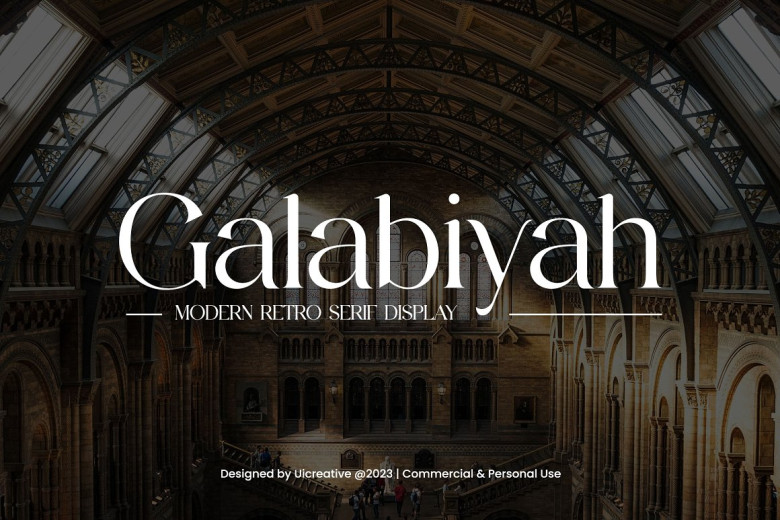
Galabiyah Font
Galabiyah Retro Modern Serif Font is an elegant and beautiful font designed with retro modernist qualities that is versatile enough to suit many projects including magazine covers, book covers, logos, wedding invitations, typography quotes and packaging designs. Fashion branding also incorporates masculine as well as feminine qualities in its branding design elements.
Galabiyah Modern Retro Serif Font